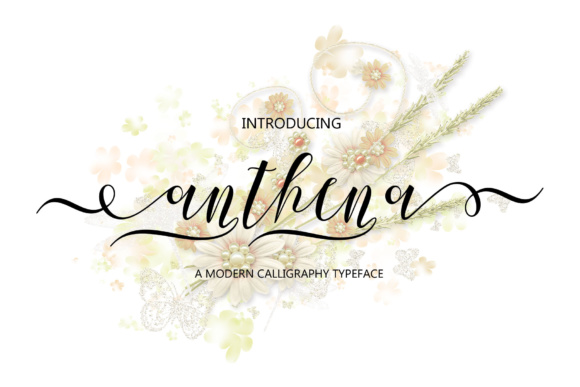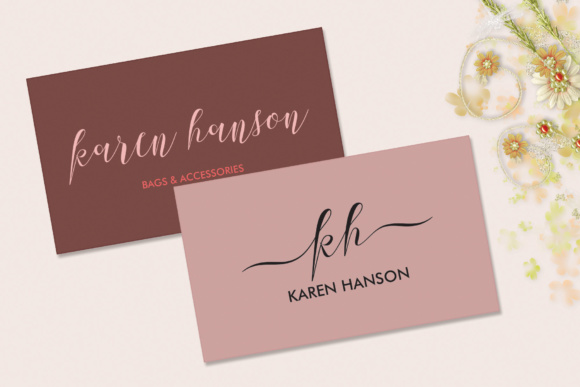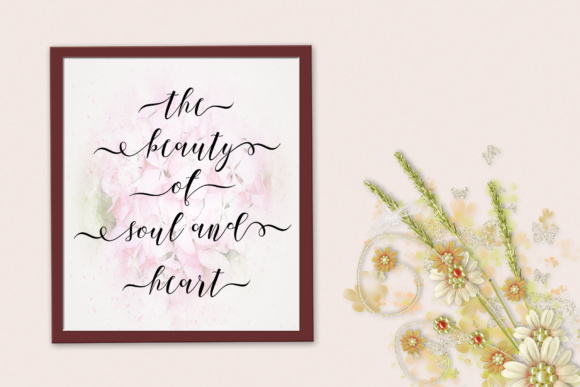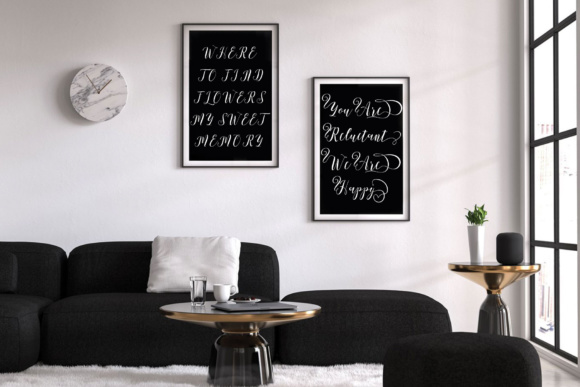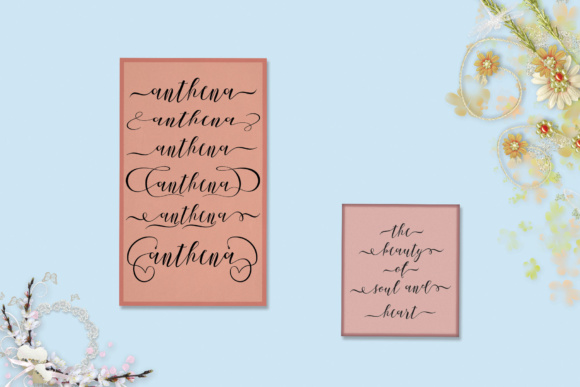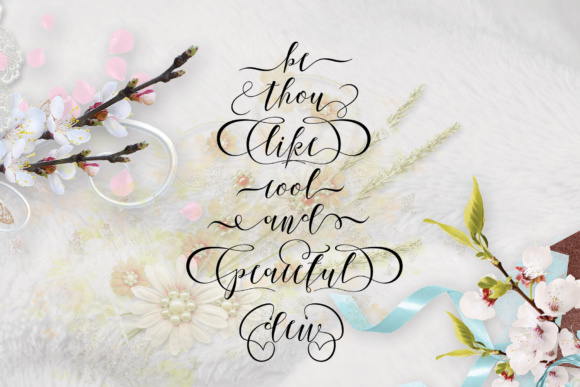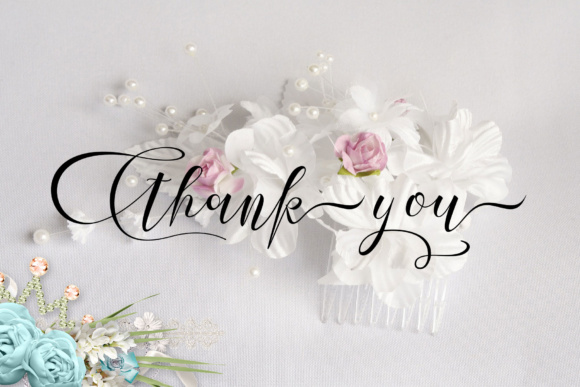
Anthena Script Font
Anthena Script is a modern calligraphy typeface. With its furnished fine lines, Anthena will add a touch of elegance to your design. Anthena can be used for various purposes such as: newsletters, posters, badges, greeting cards and much more!